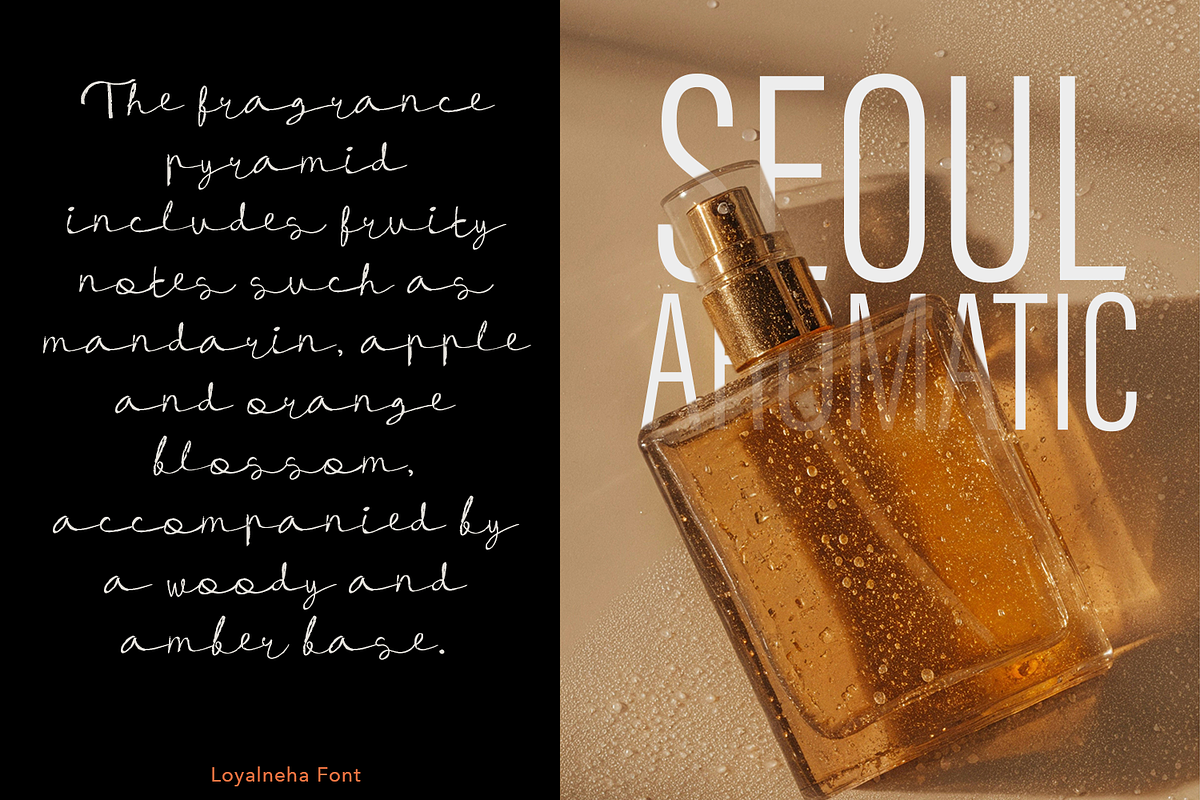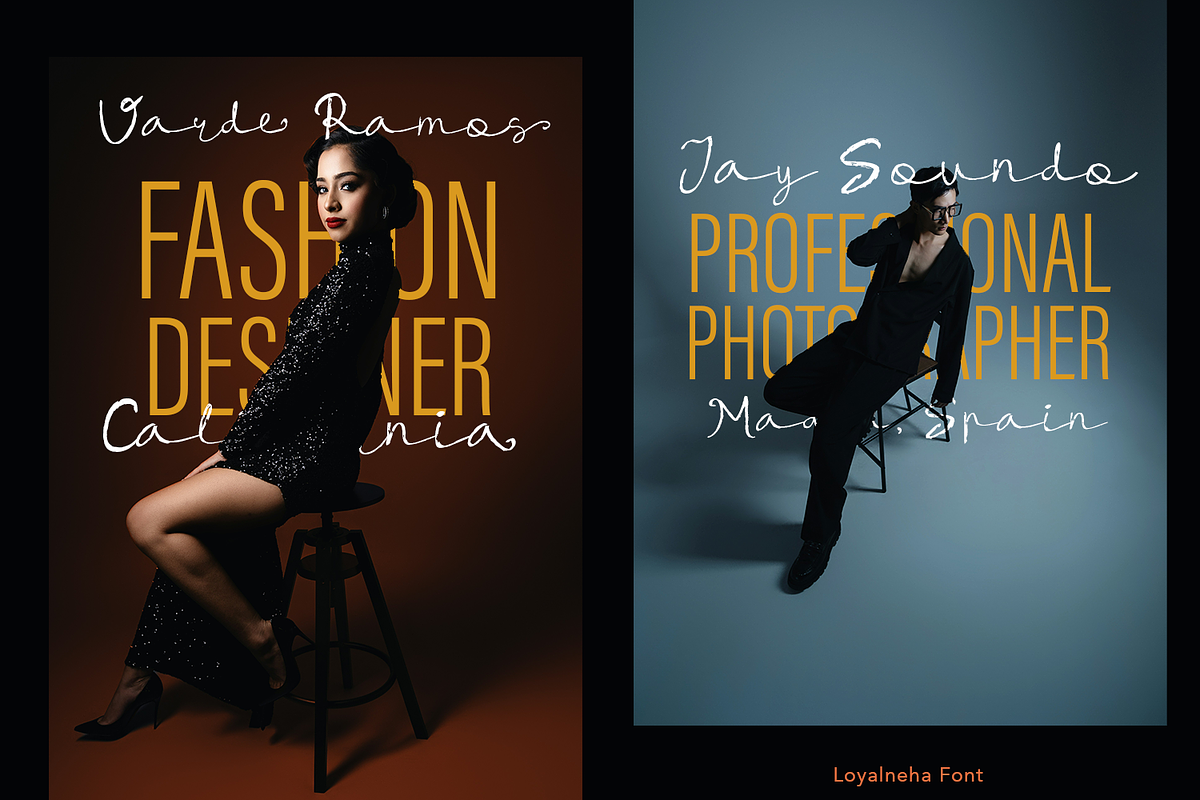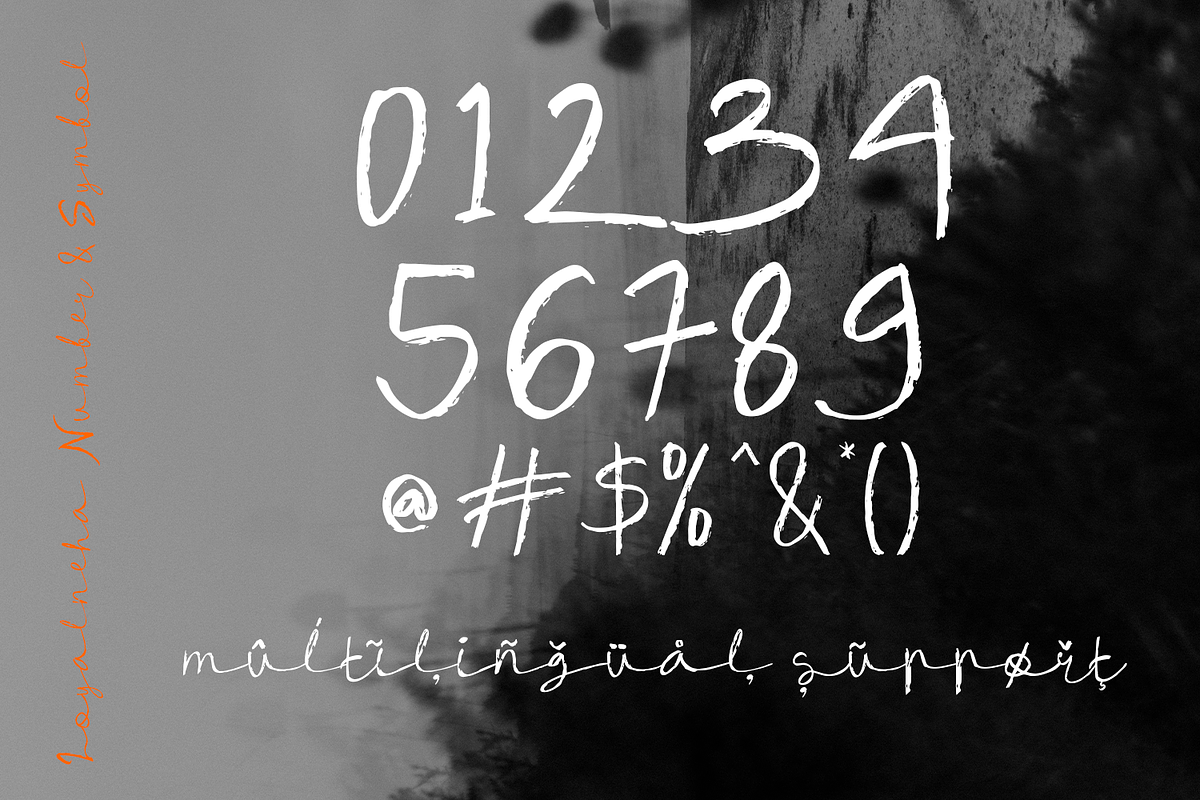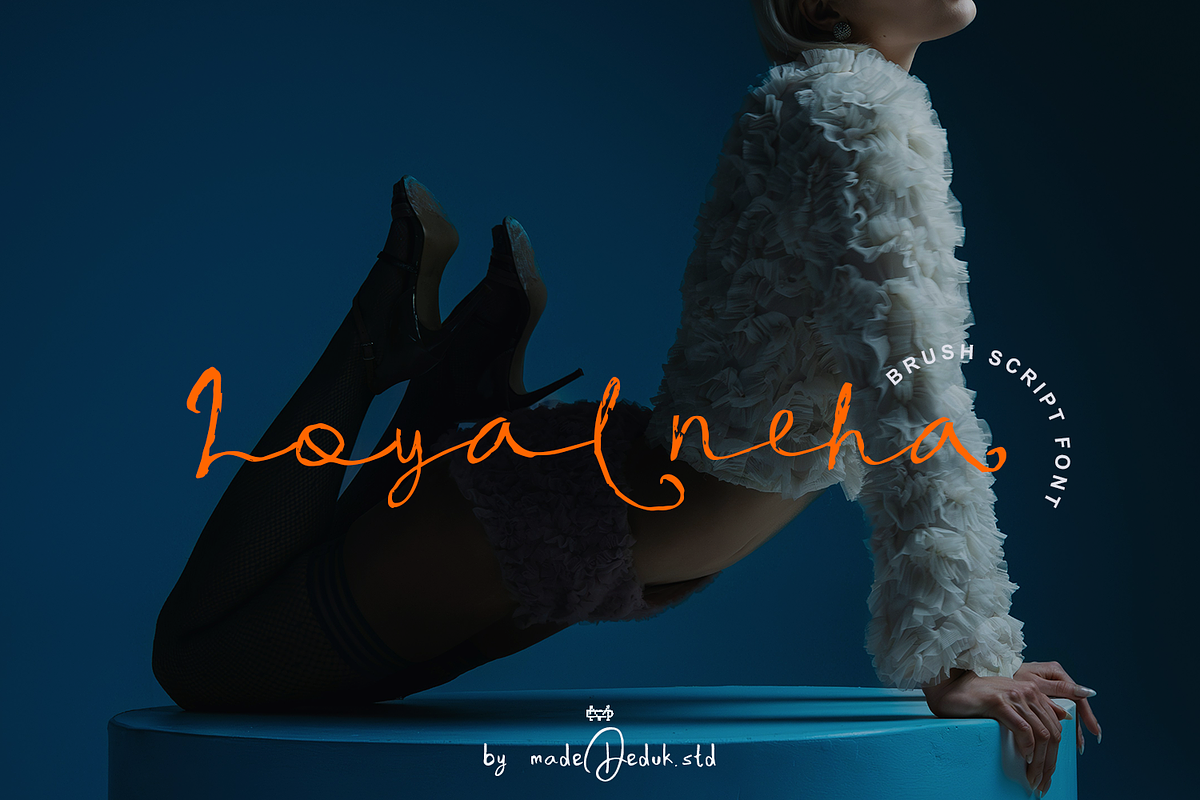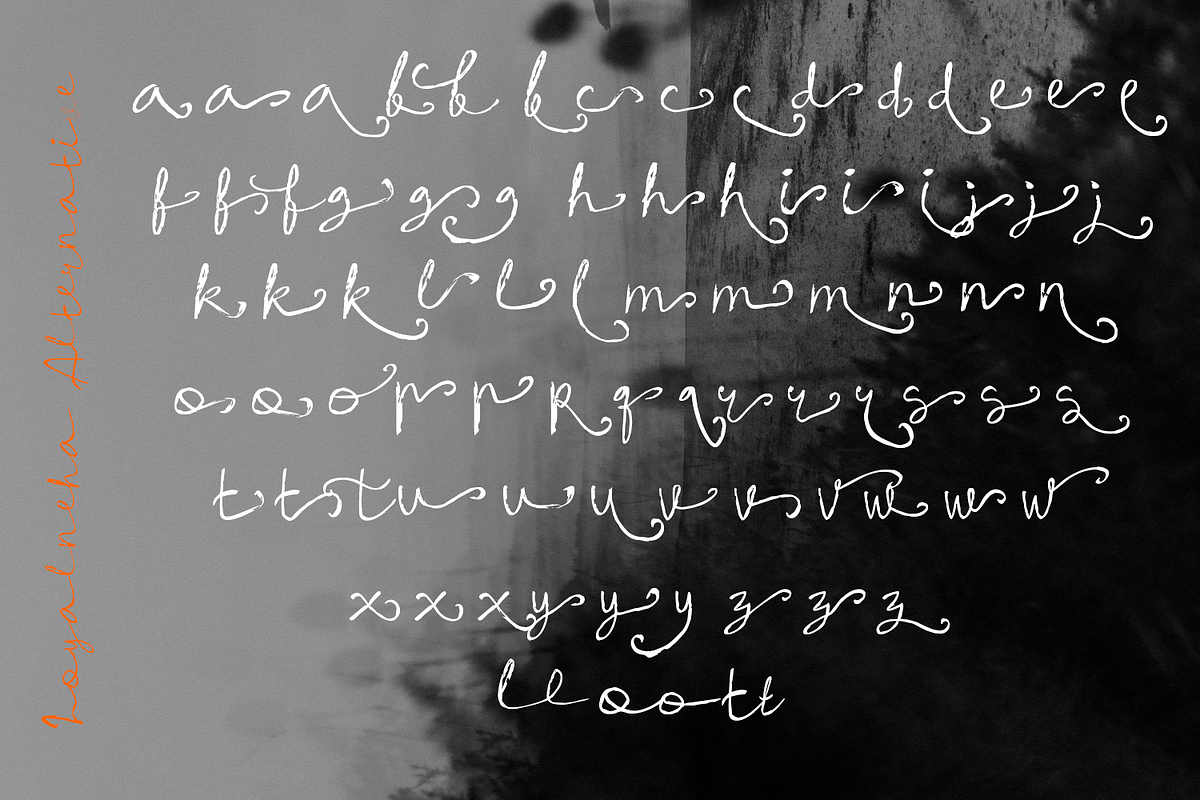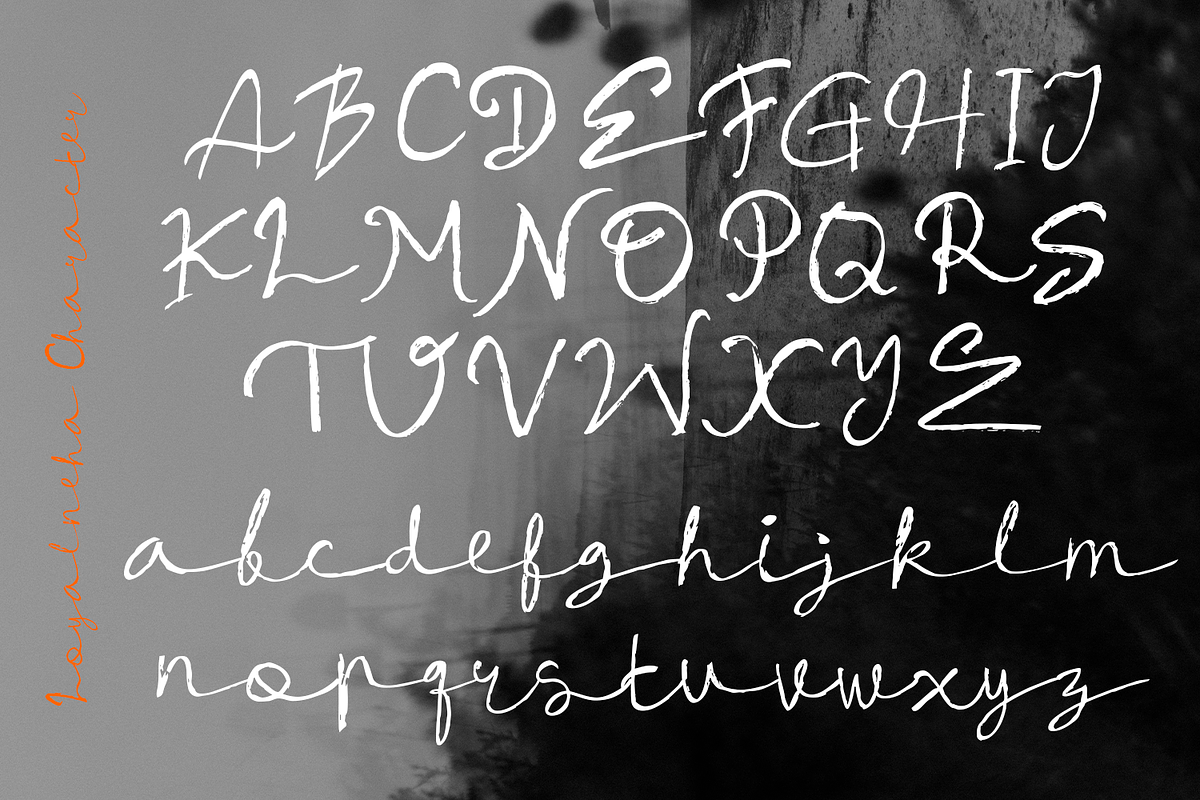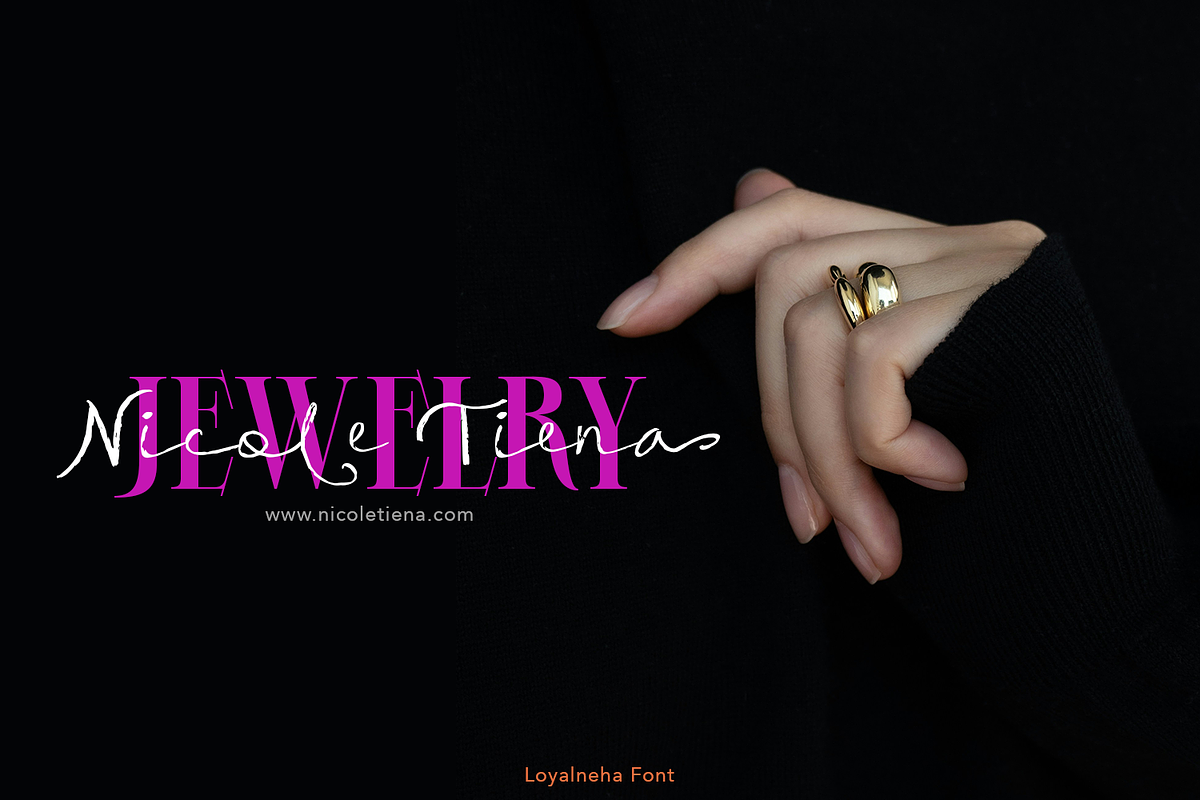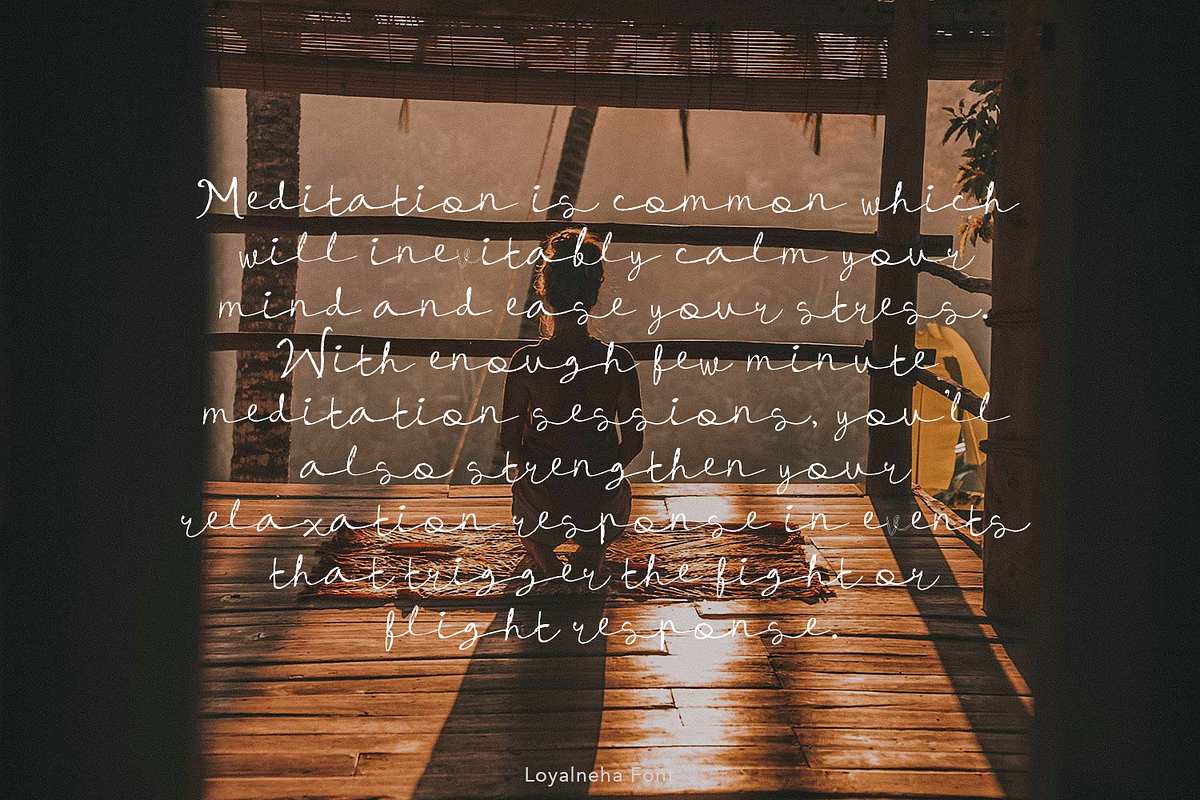
Loyalneha Brush Script
Really excited to introduce Loyalneha is a realistic handwritten font to give an incredible impression for all your project design come with ligatures and Alternative to make everything look realistic handmade handwritten.
- International Glyphs